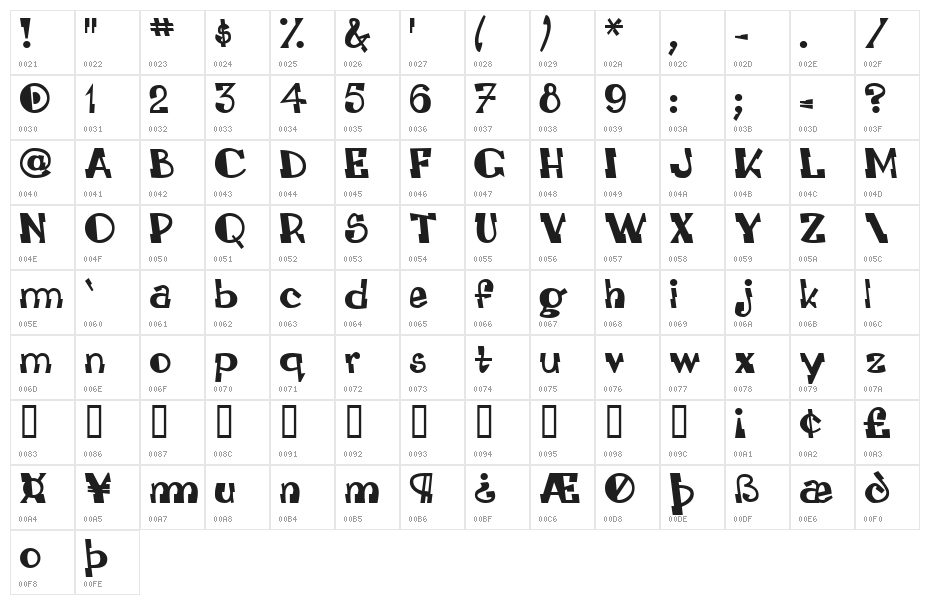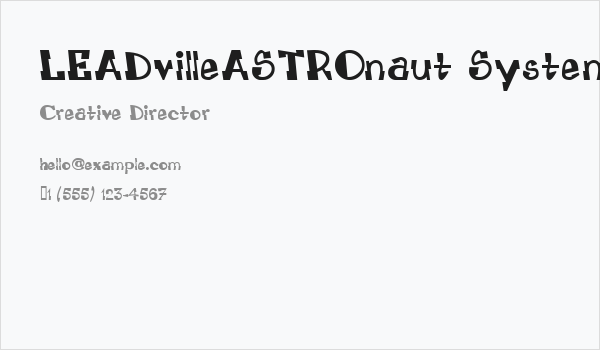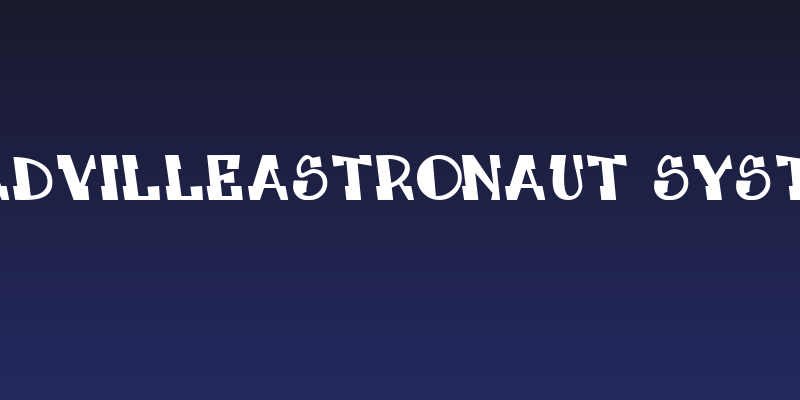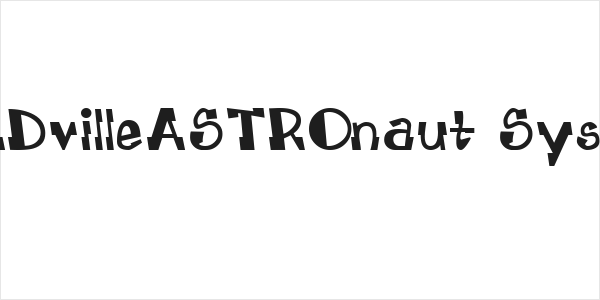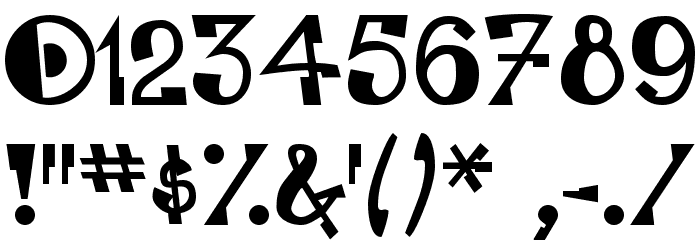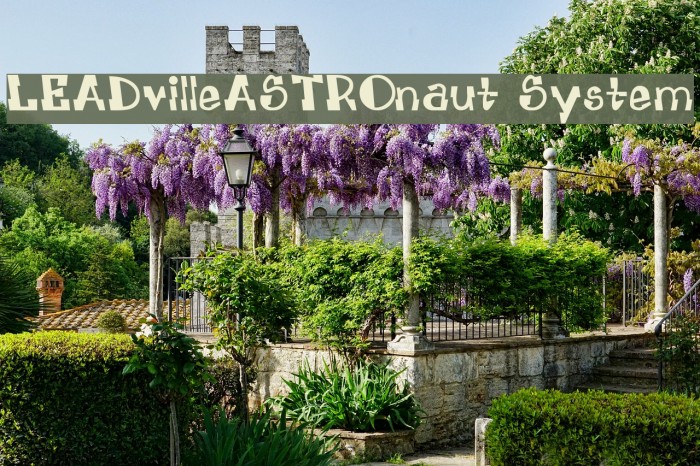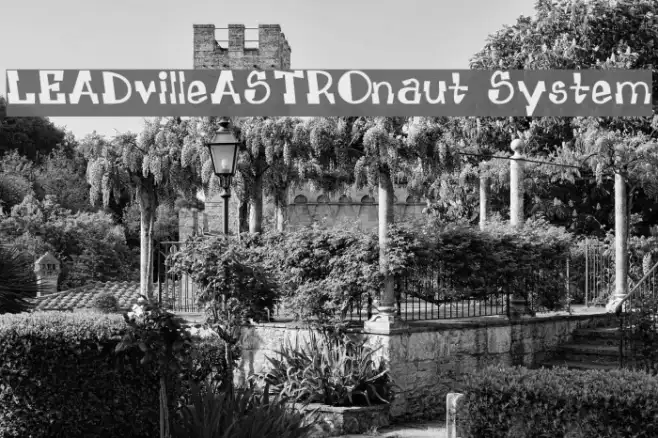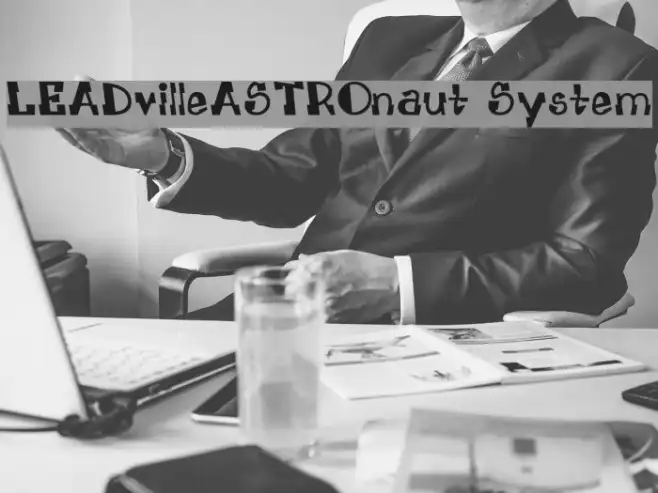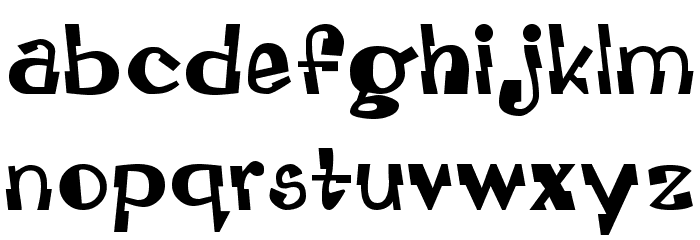
LEADvilleASTROnaut System Font
LEADvilleASTROnaut System Description
This font features a playful and bold design, characterized by its unique and quirky letterforms. The uppercase letters have a strong presence with exaggerated serifs and varying stroke widths, giving them a dynamic and energetic appearance. The lowercase letters maintain this whimsical style, with some characters exhibiting unexpected curves and angles. The numerals are equally distinctive, with a bold and slightly irregular form that complements the overall aesthetic. Special characters follow the same playful theme, adding to the font's versatility. This font is ideal for projects that require a fun and eye-catching typeface.
| Overall Style | Playful, Energetic, Quirky |
| Proposed Projects | Ideal for children's books, playful branding, posters, and creative advertising. |